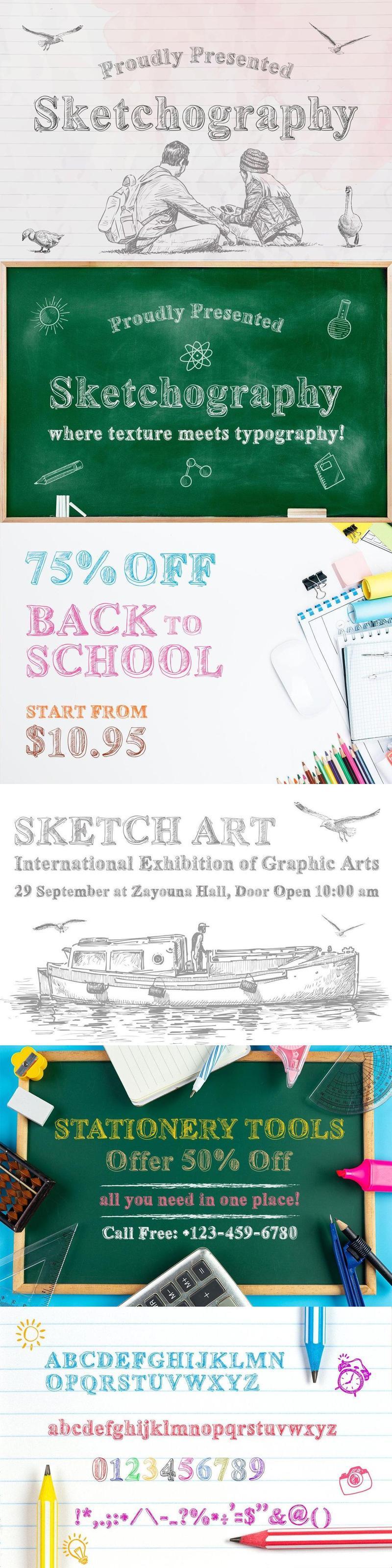
Sketchography Font C9FAKPF
**Font Description:**
Sketchography is a hand-drawn, textured font that brings a bold, artistic flair to your projects. Perfect for logos, posters, packaging, and creative designs, this font captures a rustic, vintage charm with its unique shaded strokes. Whether youre designing for print or digital, Sketchography adds a handcrafted, eye-catching touch that stands out. Download now and elevate your typography game with this one-of-a-kind typeface!
* Unique letterforms